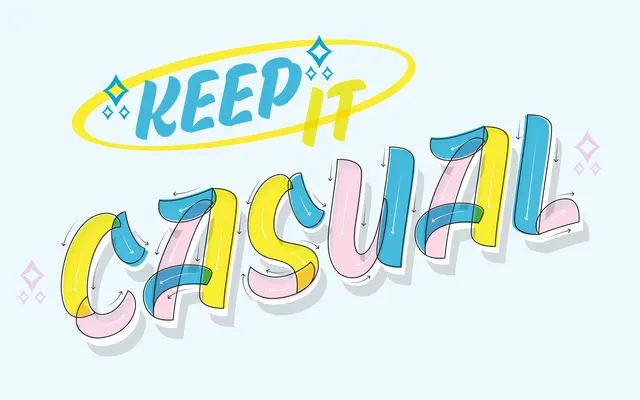
A brush-inspired display family in six weights, with a 'Rough' variant adding visible texture across matching weights.
Built around the visible individual strokes of brush construction, Skew makes no attempt to smooth away its hand-made character. The family spans six weights from Light to Super, offered in both a clean version and a Rough variant with added texture. OpenType features include discretionary ligatures, uppercase alternates and swash capitals, and the family is available as a variable font.
A brush-inspired display face with visible stroke construction, offered in a standard and a textured 'Rough' variant across six weights, placing it firmly in the display category with an expressive, hand-made character.